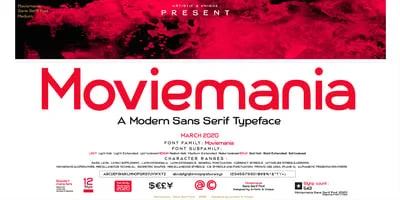
Moviemania Font
Moviemania Font is ideal for movie poster design, entertainment industry branding, cinema signage, film festival promotions, theater marquees, streaming platform graphics, movie review websites, entertainment magazine headlines, video production logos, and Hollywood-themed event materials. This dynamic typeface captures the glamour and excitement of the entertainment industry with authentic cinematic appeal.
What makes Moviemania Font exciting is its spectacular ability to evoke the golden age of Hollywood while maintaining contemporary relevance. The font features dramatic letterforms with bold personality and cinematic flair that instantly transport viewers into the world of movies and entertainment. Its theatrical design elements include striking proportions and eye-catching details that create the visual drama essential for entertainment marketing, making it perfect for projects that need to capture audience attention and communicate show business excitement.
Moviemania Font comes in spectacular font families including Regular, Bold, Light, Condensed, Extended, and Neon variations. Each family member maintains the signature entertainment appeal while offering different stylistic approaches to accommodate various cinematic design needs, from subtle film credits to blockbuster movie title treatments that dominate theater screens.
Whether you're designing for the entertainment industry or creating movie-themed projects, Moviemania Font provides the typographic star power needed to create memorable impressions. The font's cinematic character and Hollywood glamour make it an excellent choice for designers working on entertainment projects that need to communicate excitement, drama, and the magic of movies through typography that celebrates the art of storytelling.